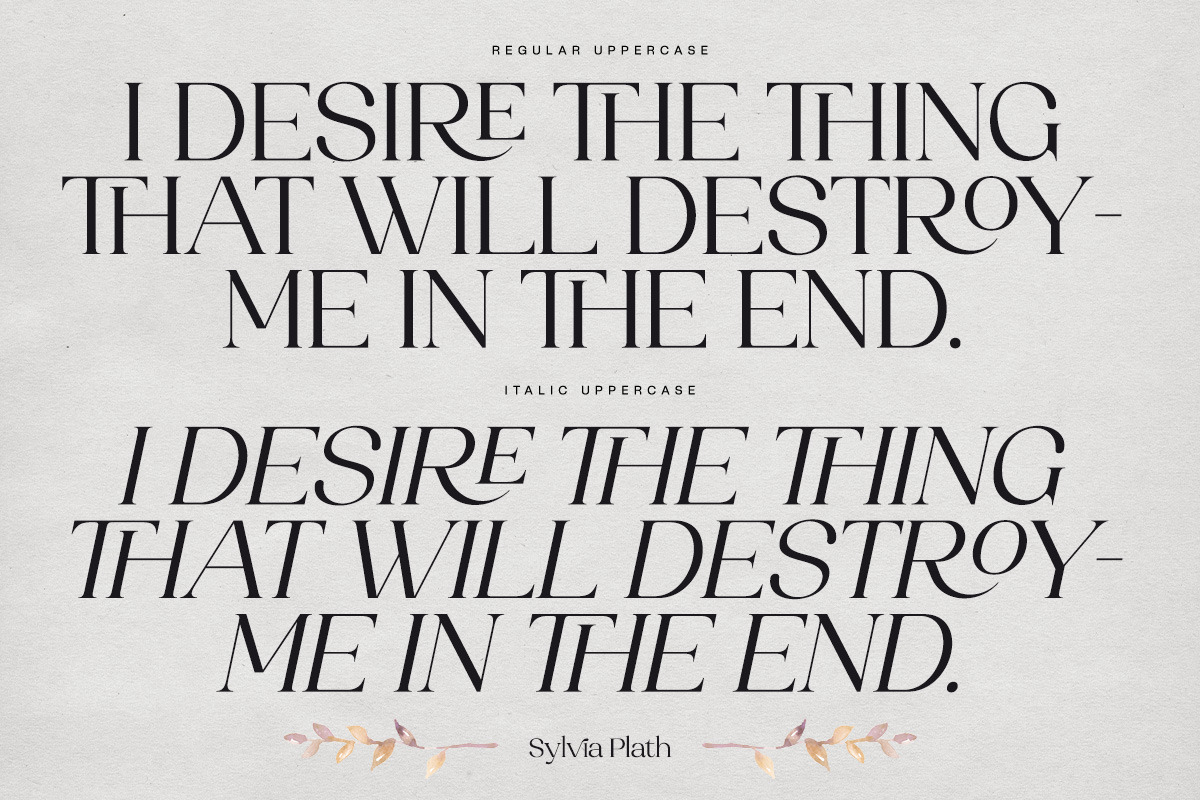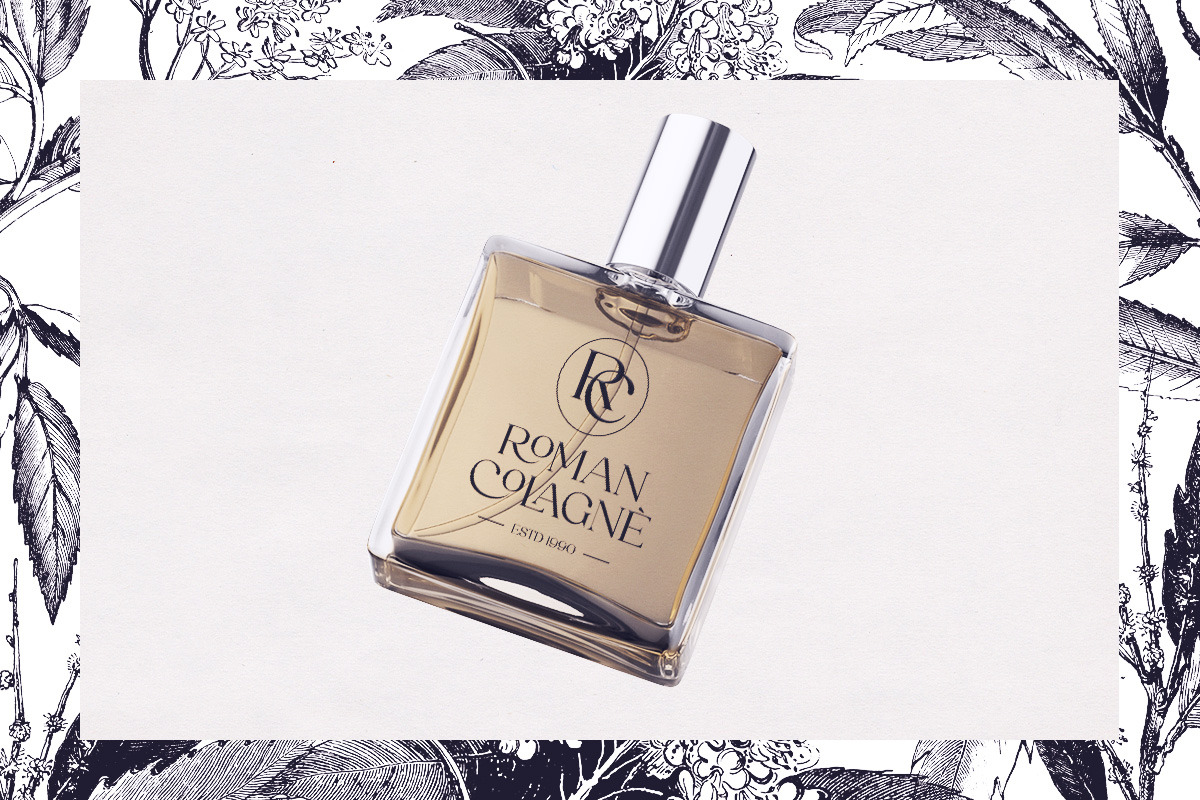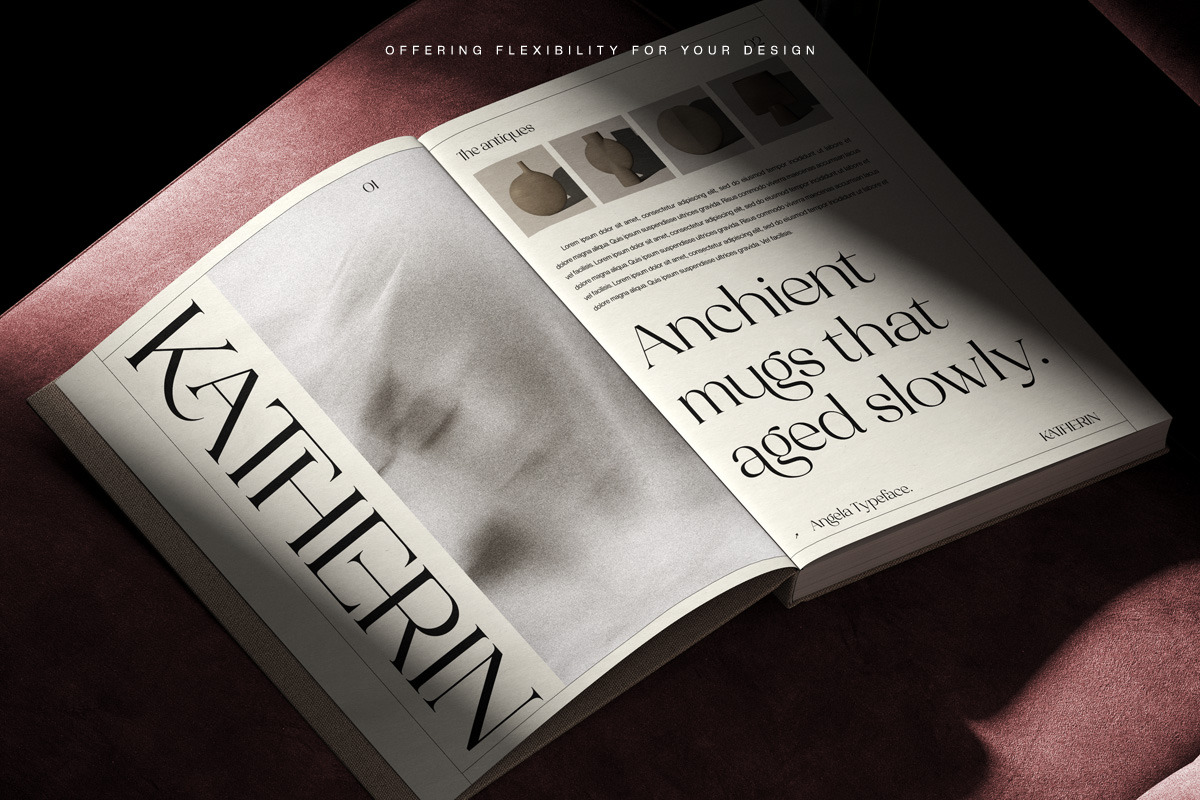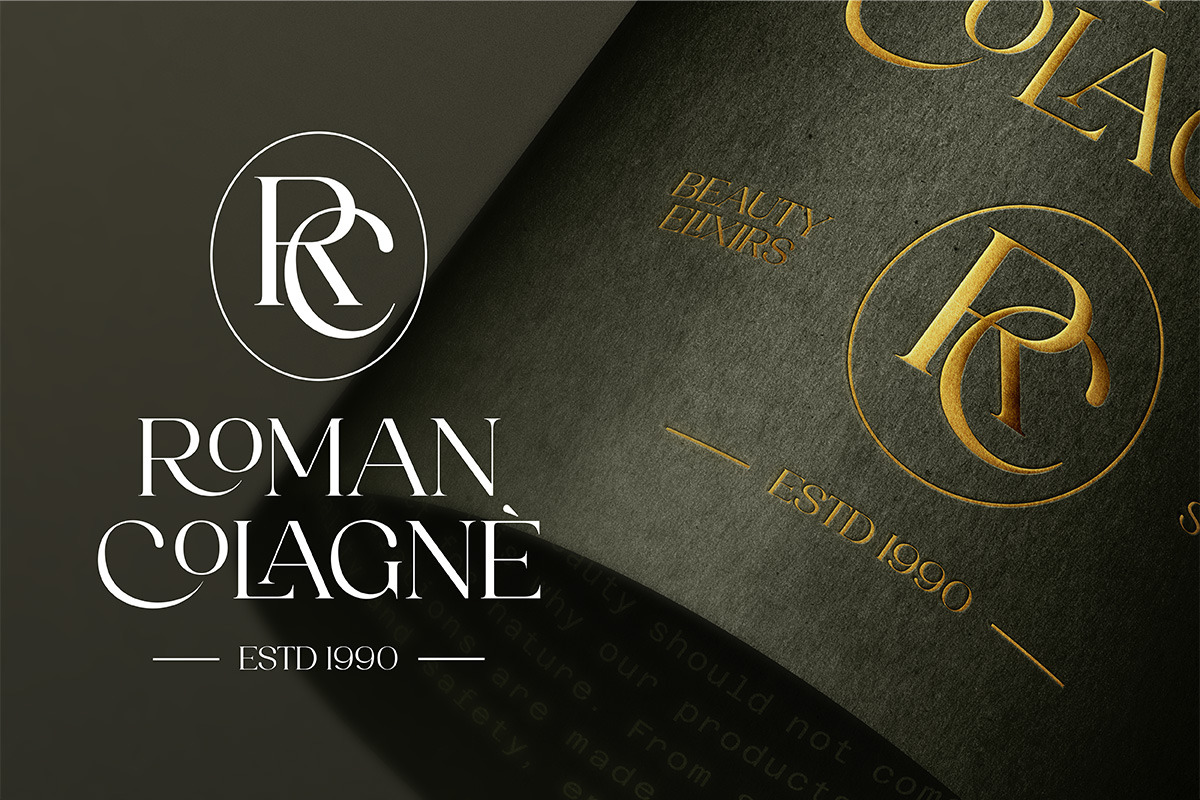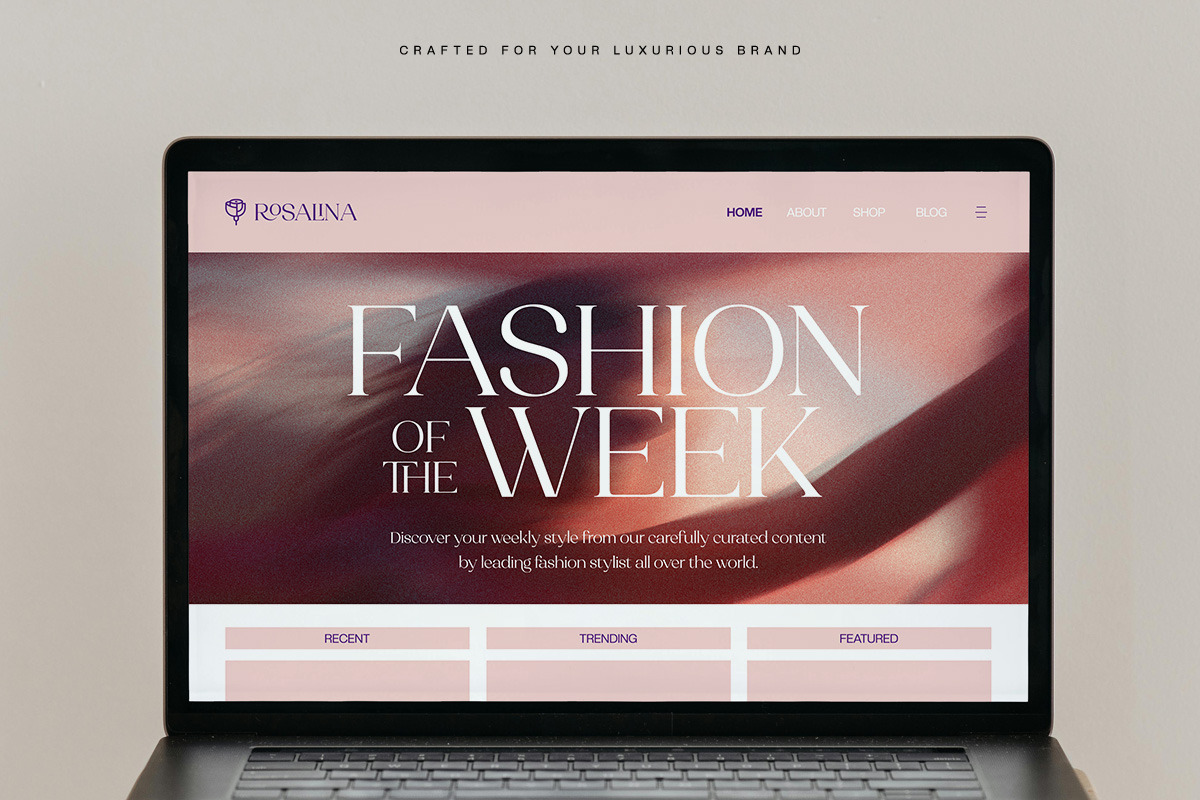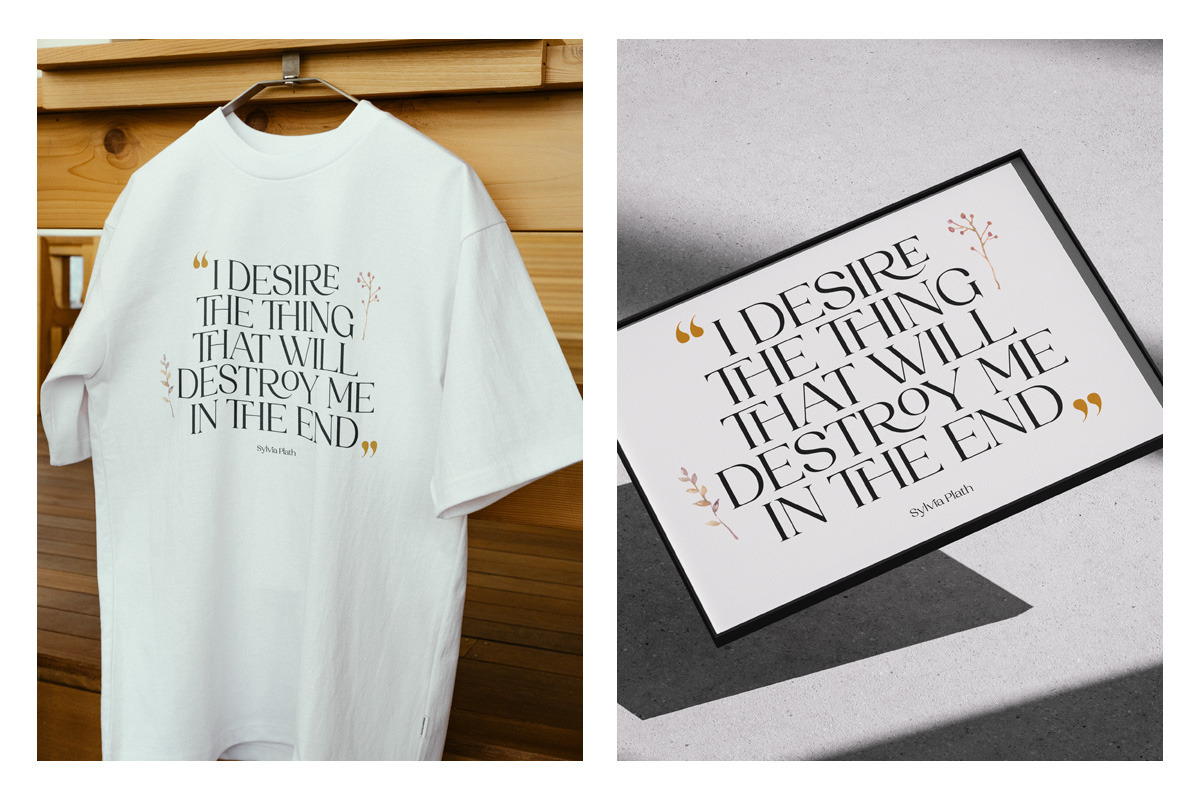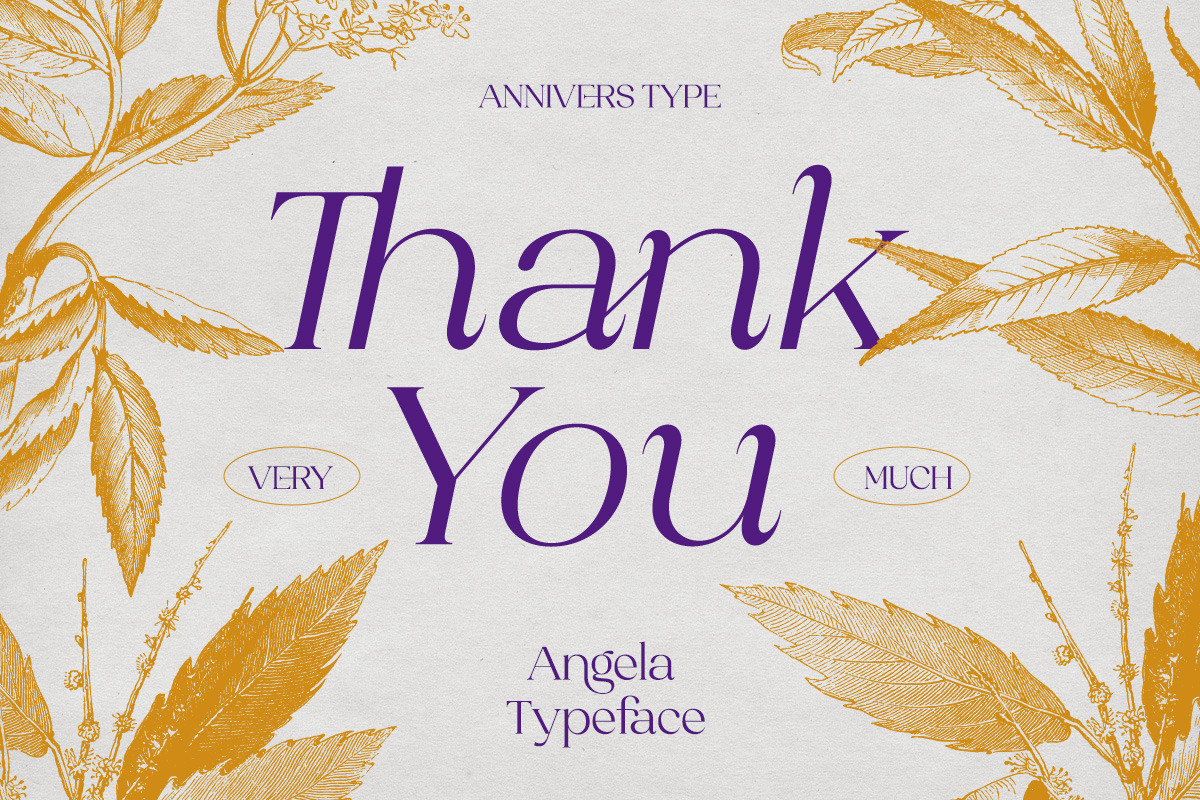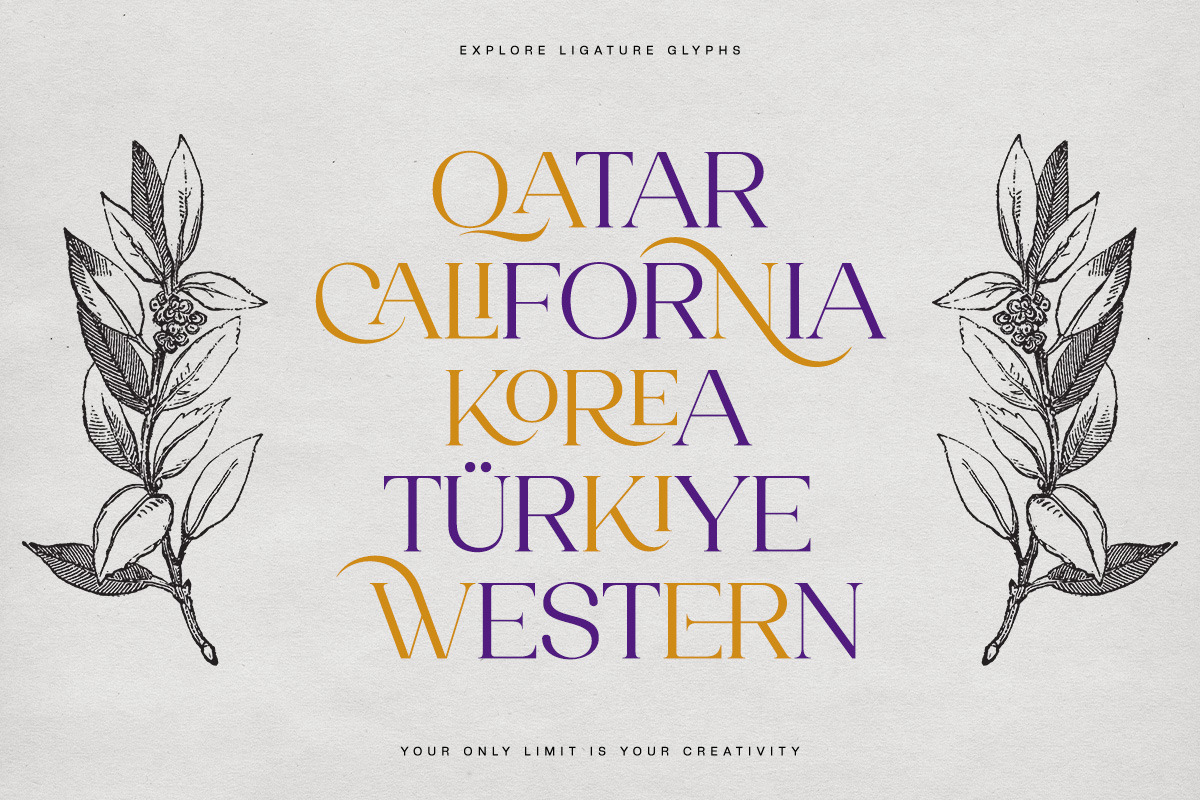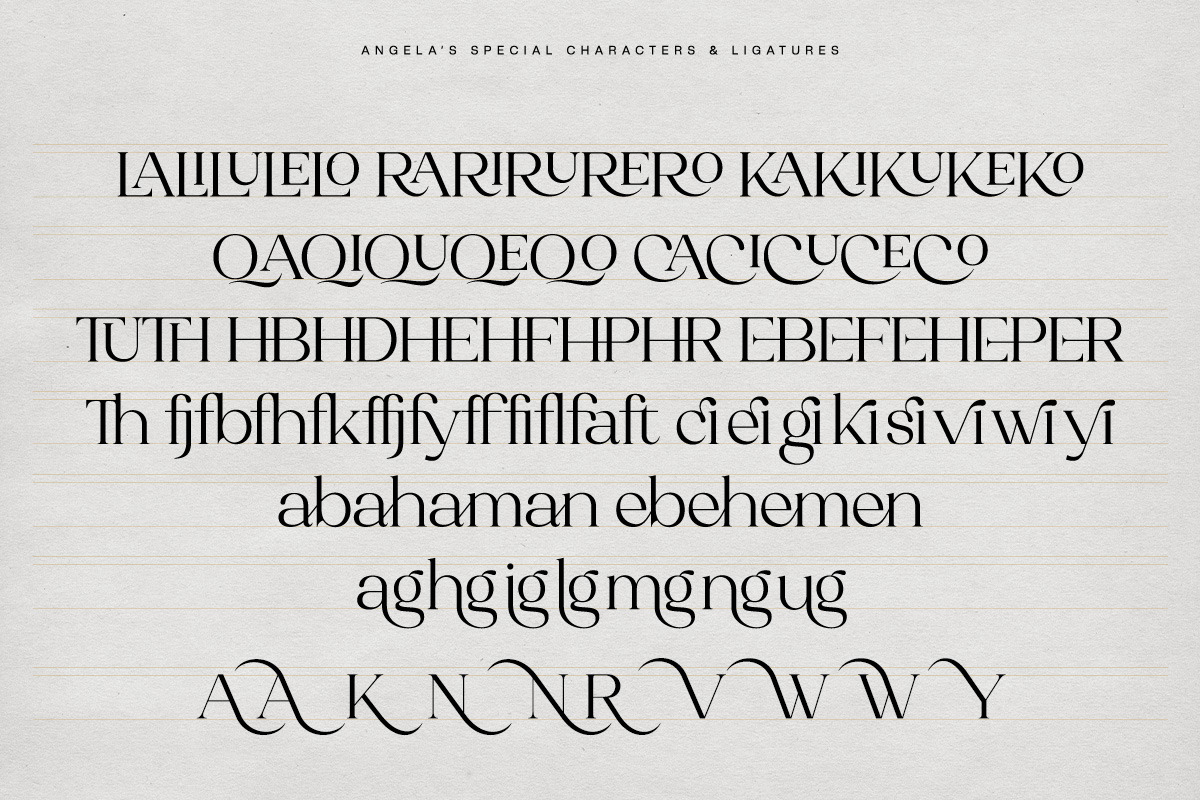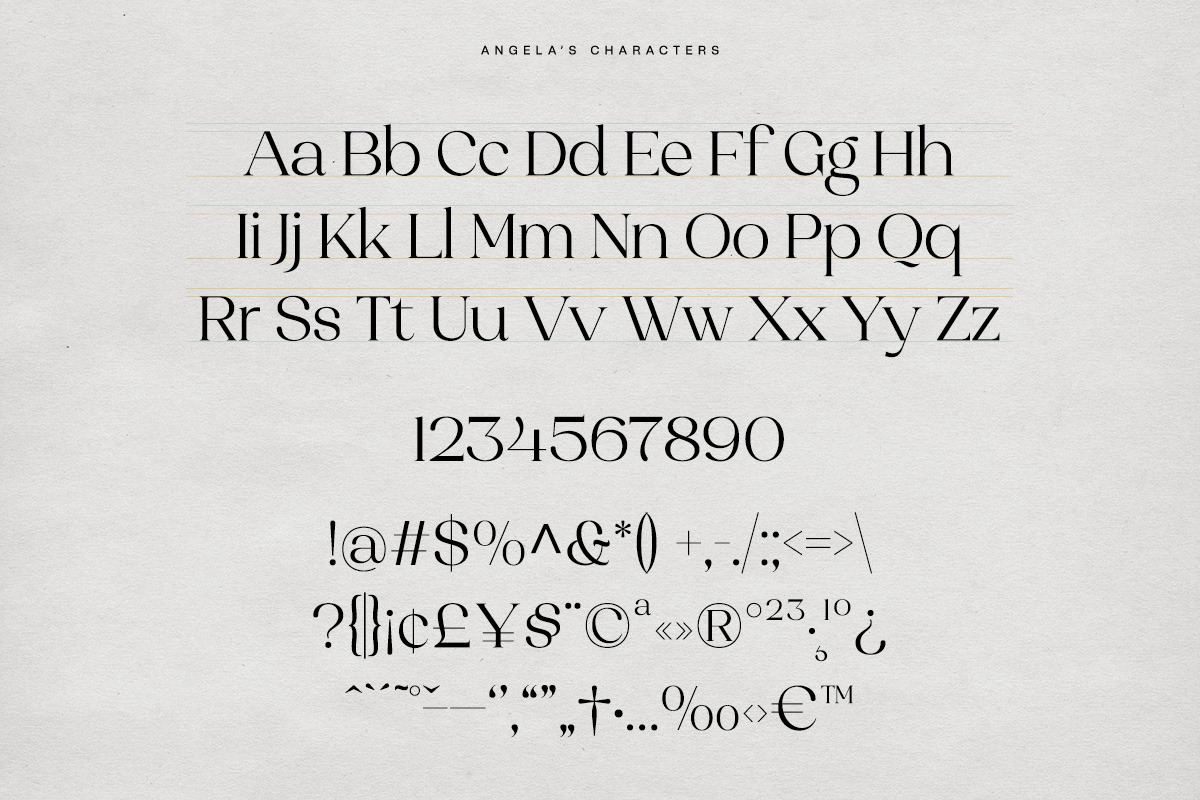
Angela - A Timeless & Elegant Serif
Angela a serif font that embodies the perfect blend of timeless grace and refined sophistication. With its delicate curves, balanced proportions, and subtle details, Angela brings an air of elegance to any project it graces. From luxury branding to editorial layouts, wedding stationery to premium packaging, Angela delivers a distinctive personality,confident yet feminine-that instantly elevates your design. Its high contrast strokes and classic letterforms make it ideal for impactful headlines, refined logos, and artistic compositions.
- uppercase and lowercase
- numerals and punctuation
- OpenType features (ligatures and alternates)
Give your designs a touch of timeless elegance with Angela